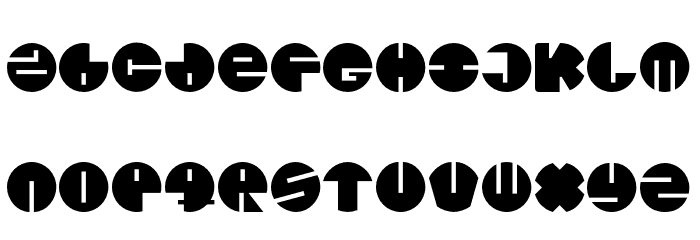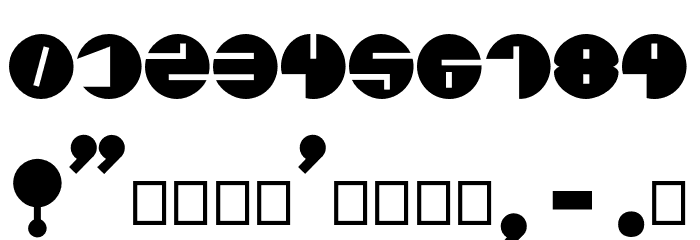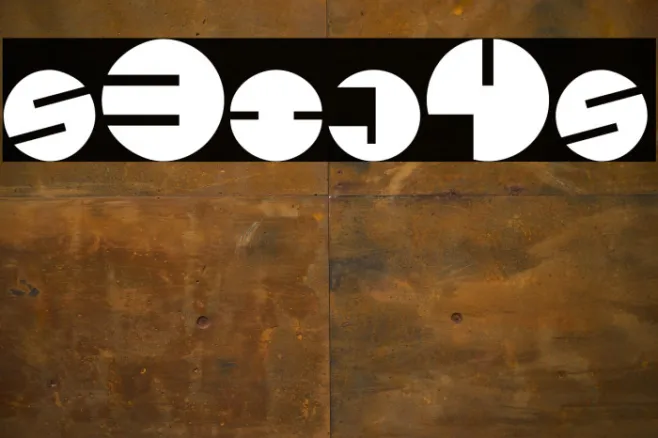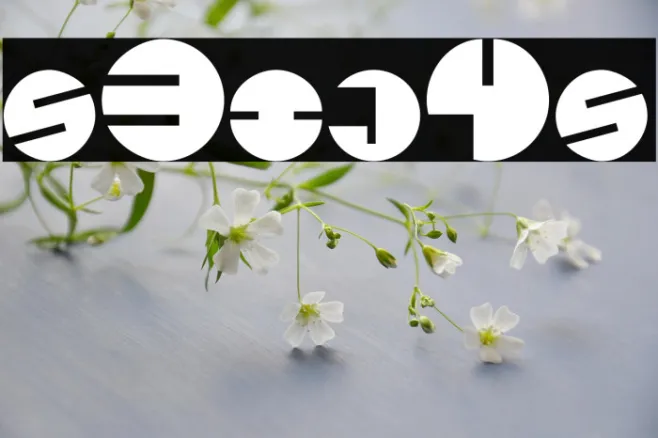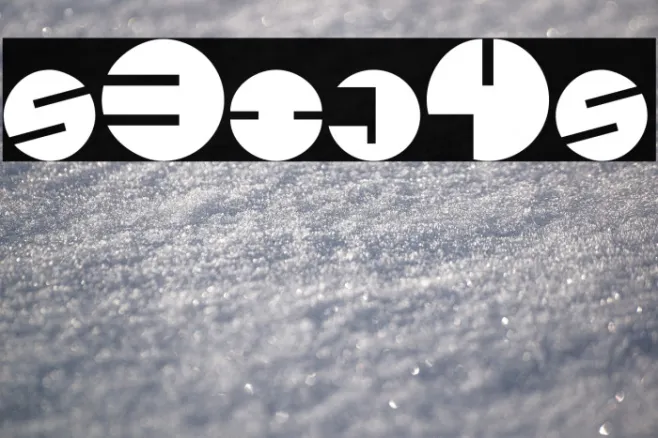
s3ij4s Font
This font features a bold, geometric design with characters composed of circular and semi-circular shapes. The letters are highly stylized, with a futuristic and abstract appearance, making use of negative space to create distinct forms. The uppercase and lowercase letters maintain a consistent style, emphasizing symmetry and balance. Numbers and special characters follow the same geometric theme, ensuring uniformity across the typeface. The overall aesthetic is modern and eye-catching, suitable for projects that require a strong visual impact.
A bold, geometric font with a futuristic and abstract design.
- Proposed Projects: Ideal for branding, posters, album covers, and any project requiring a modern, standout typeface.